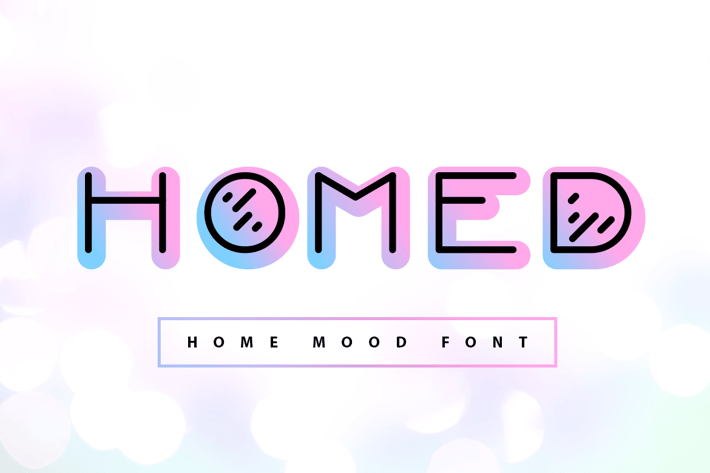
Homed| color home mood font
Homed is a gentle gradient color sans serif font designed with rounded thick letters. The font is bold, but also has thin lines for good readability. Cozy and homely, it works great to make short color titles. The font looks great both on a dark and a light background.
The font Homed contains only capital letters.